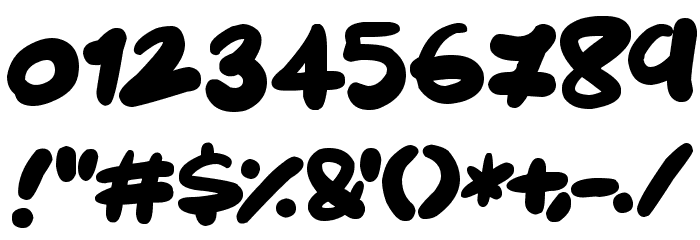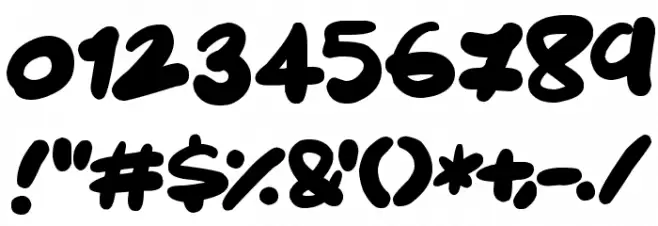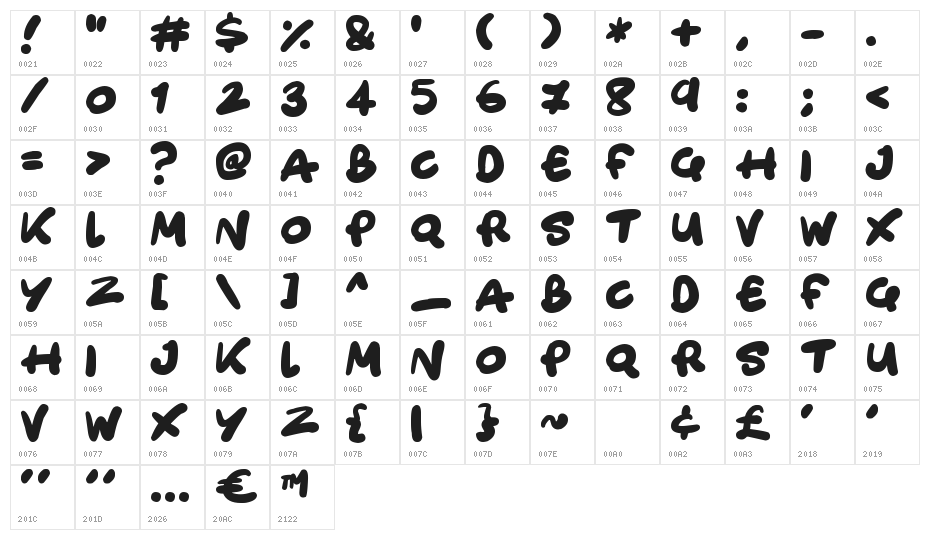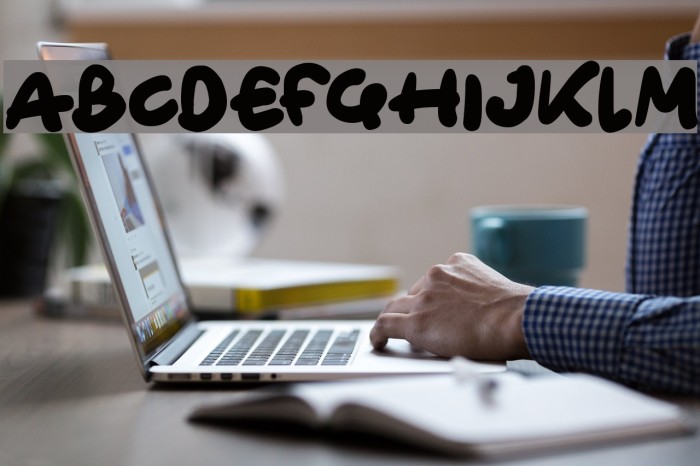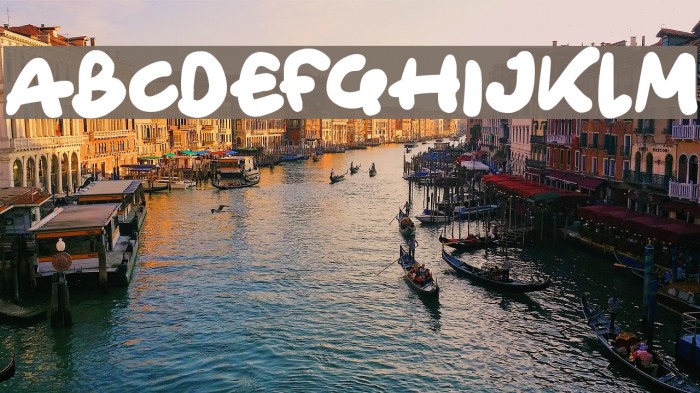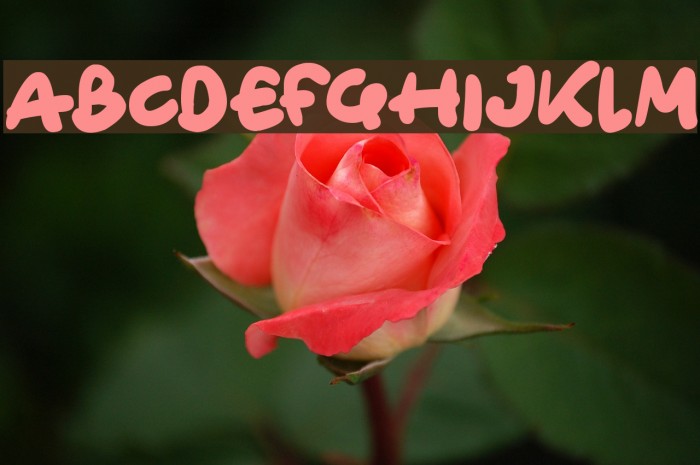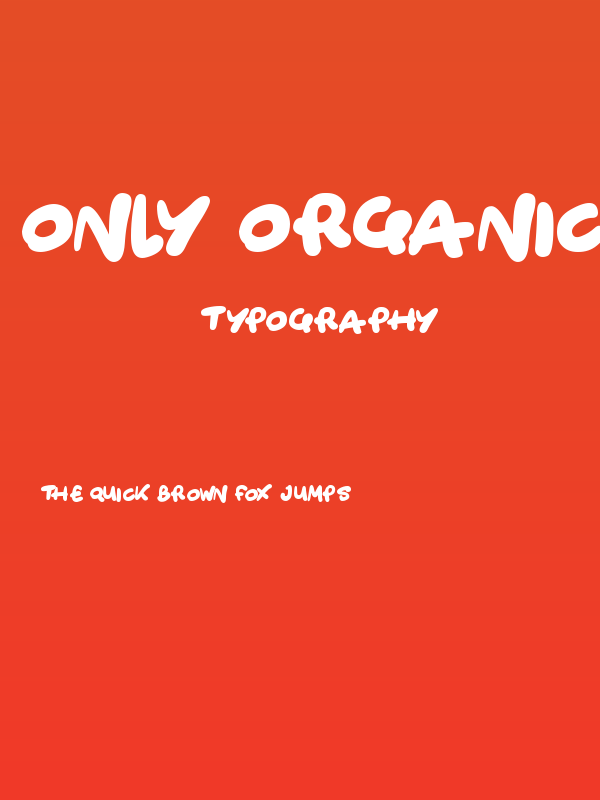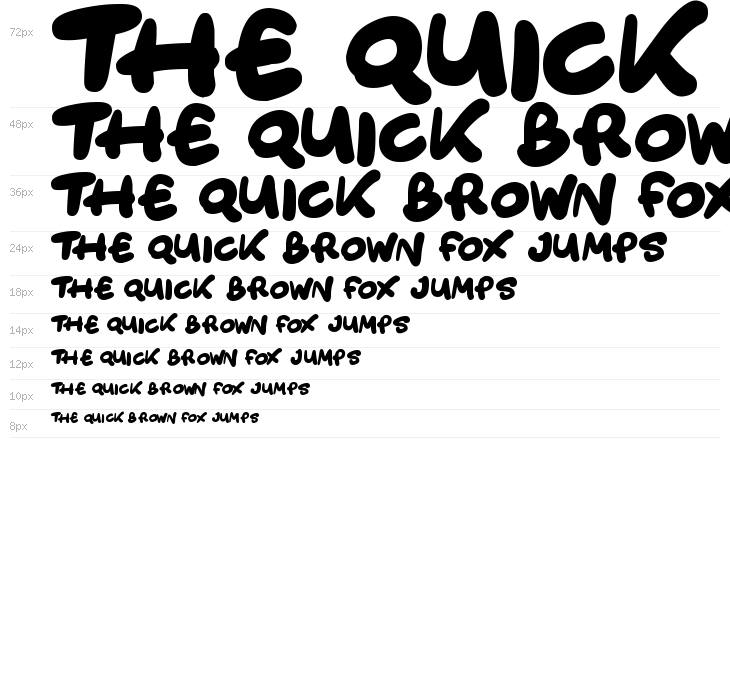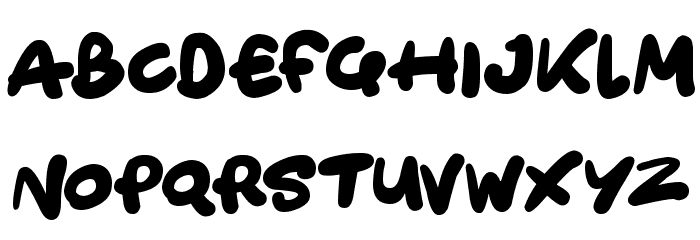
Only Organic Font
Only Organic Description
This font features a bold, playful style with rounded edges and a hand-drawn appearance. The letters are thick and have a consistent weight throughout, giving it a strong presence. The characters are slightly irregular, adding to the organic and casual feel. The font includes both uppercase and lowercase letters, numbers, and a variety of special characters. Its design is reminiscent of graffiti or street art, making it suitable for projects that require a fun and informal look.
Overall StylePlayful, Casual
Proposed ProjectsIdeal for children's book covers, playful branding, posters, and casual social media graphics.